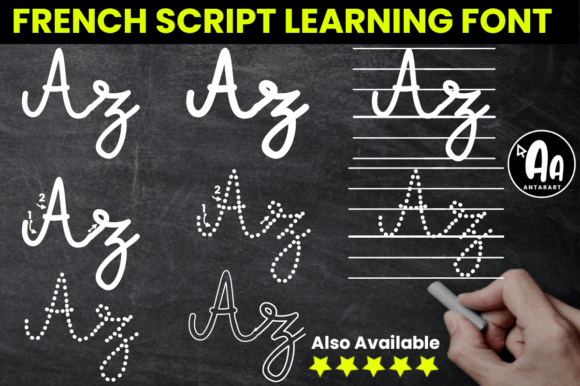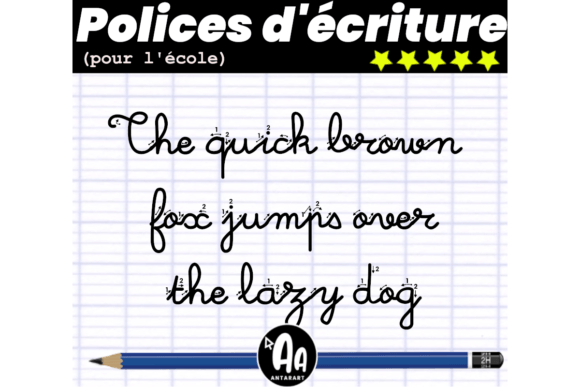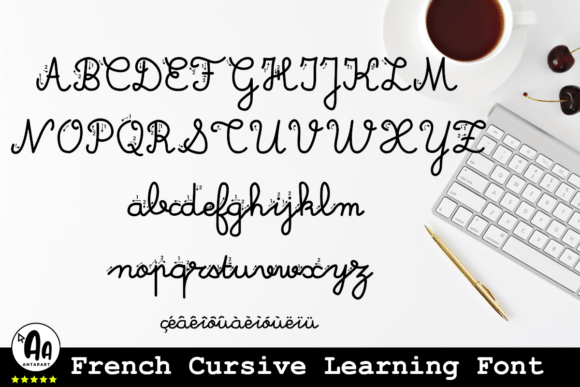
French Cursive Arrows Font: A Fun and Interactive Way to Learn and Teach French Handwriting
Are you a designer, crafter, or educator looking for a unique and engaging way to teach or learn French cursive handwriting? Look no further than the French Cursive Arrows Font! This innovative font is designed to help you create hundreds of worksheets and educational materials using any software, making it an excellent resource for anyone looking to learn or teach French cursive handwriting in a fun and interactive way.
What is French Cursive Arrows Font?
French Cursive Arrows Font is a handwritten font that features beautiful, cursive letters with arrows to guide the handwriting process. The font is specifically designed to mimic traditional French cursive handwriting, making it an excellent resource for those looking to learn or teach this style of handwriting.
Benefits of Using French Cursive Arrows Font
There are many benefits to using the French Cursive Arrows Font, including:
- Customization: With the French Cursive Arrows Font, you can create customized worksheets and educational materials that cater to your specific needs.
- Interactive learning: The font’s arrows provide a fun and interactive way to learn and teach French cursive handwriting, making the learning process more engaging and enjoyable.
- Versatility: The font can be used to create a wide range of educational materials, including worksheets, posters, and activity sheets.
Ideas for Using French Cursive Arrows Font
The French Cursive Arrows Font is a versatile tool that can be used in a variety of ways. Here are some ideas to get you started:
- Worksheet creation: Create customized worksheets for students to practice their French cursive handwriting.
- Poster design: Design posters that showcase the French cursive alphabet, with arrows to guide the handwriting process.
- Activity sheets: Create activity sheets that feature French cursive handwriting exercises, such as word searches and crossword puzzles.
- Handwriting guides: Create handwriting guides that feature the French cursive alphabet, with arrows to help students learn the correct letter formation.
The French Cursive Arrows Font is a valuable resource for designers, crafters, and educators looking to teach or learn French cursive handwriting in a fun and interactive way. With its ease of use, customization options, and versatility, this font is sure to become a go-to tool for anyone looking to create engaging and effective educational materials.